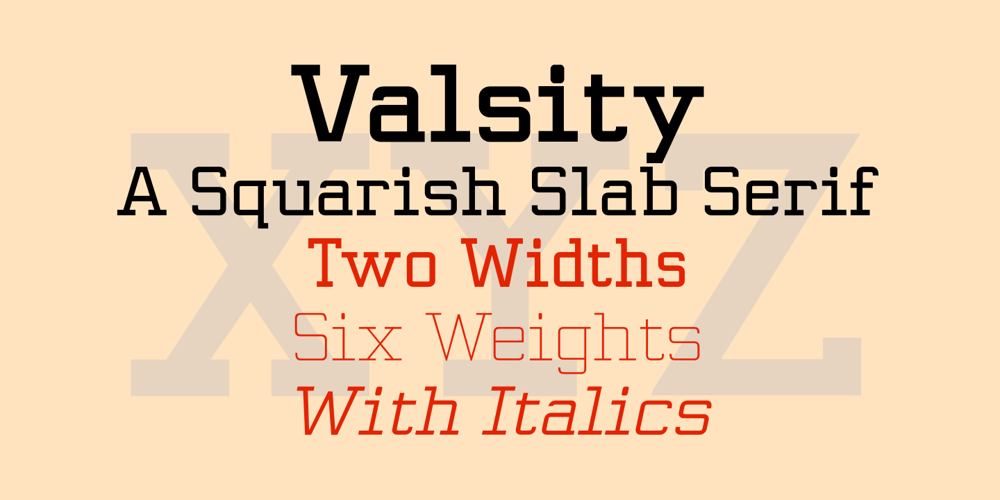
Valsity
Valsity font
Valsity Font Family was designed by Robert Schenk and published by Ingrimayne Type. Valsity contains 20 styles and family package options. Valsity is a squarish slab-serif family with five weights and two widths, each with an italics for a total of twenty members. With negligible contrast, it is almost monoline. It is for decorative uses; it is too square and lacks the contrast to make it a good choice for extensive text.Valsity began with a blending of two other squarish slab-serifs, Valgal and Kwersity, and its name reflects that ancestry. From there it took on a life of its own, often diverging from its parents.